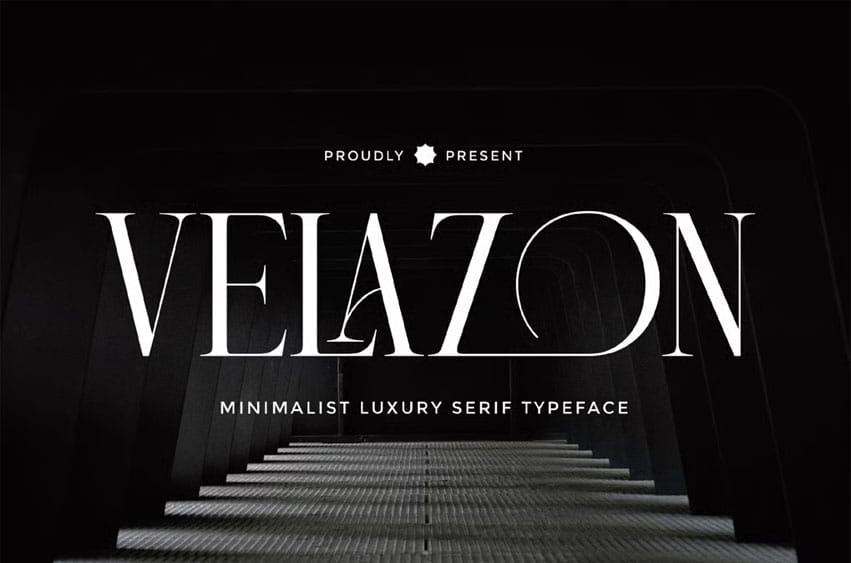
Velazon Font Luxury Modern Serif Typeface is a refined and sophisticated serif font crafted to elevate high-end branding, premium editorial layouts, and elegant visual identities. Designed with timeless letterforms, balanced contrast, and graceful curves, Velazon delivers a perfect blend of modern minimalism and classic luxury aesthetics.
This typeface is ideal for logos, brand identities, headlines, invitations, posters, stationary, social media graphics, and any creative project that requires a touch of sophisticated charm.
- Uppercase alphabet A-Z
- Lowercase alphabet a-z
- Numbers 0-9
- Some punctuation
- Some Alternates and Ligatures